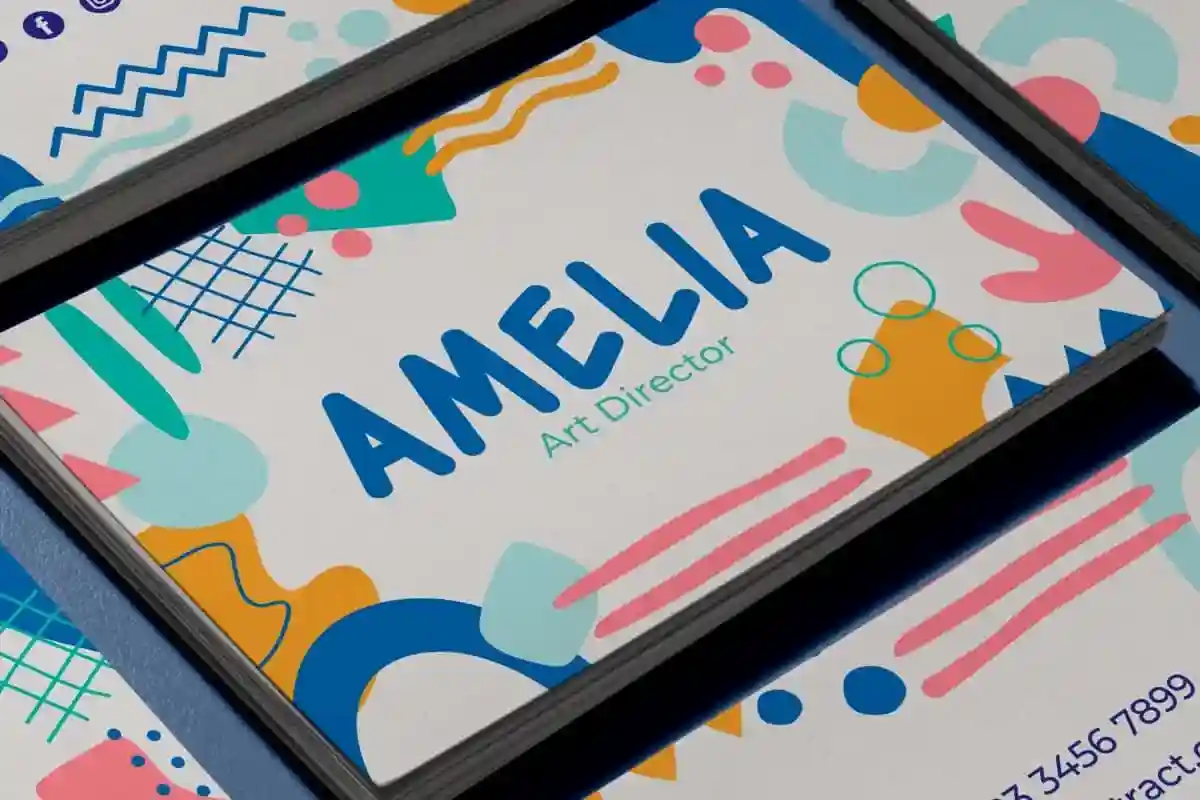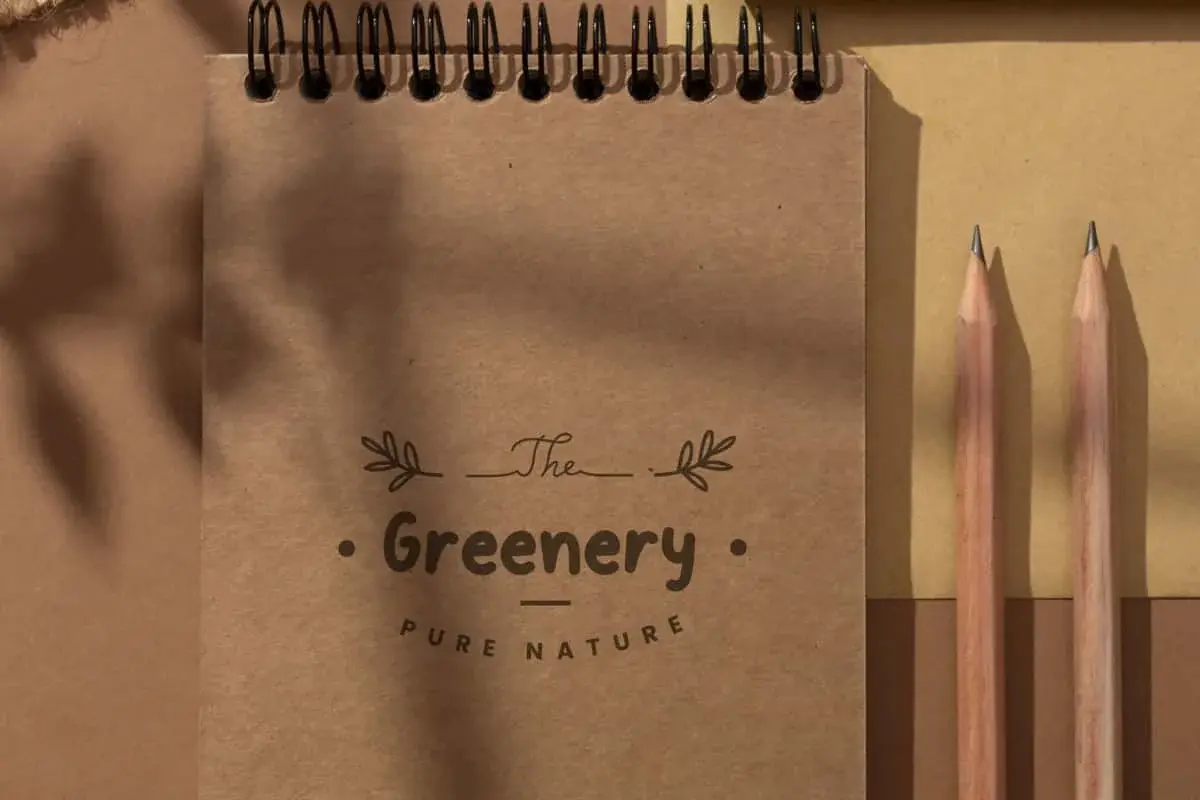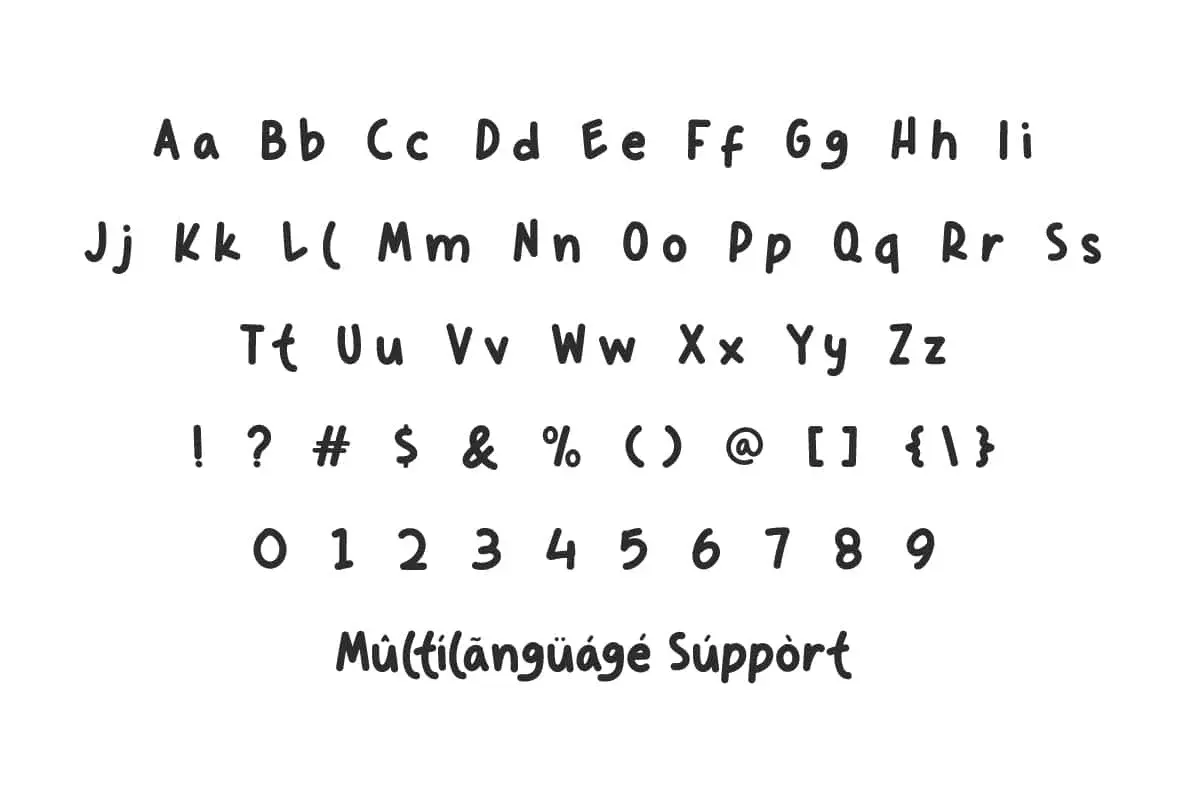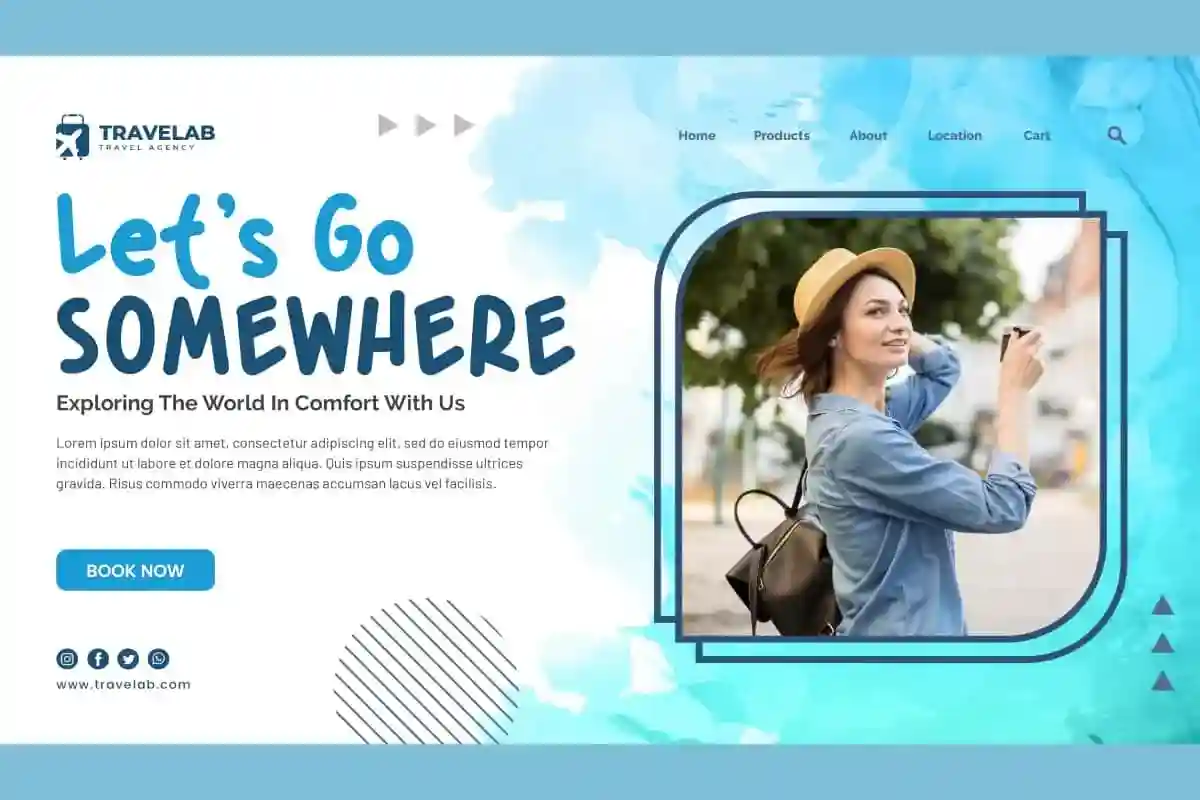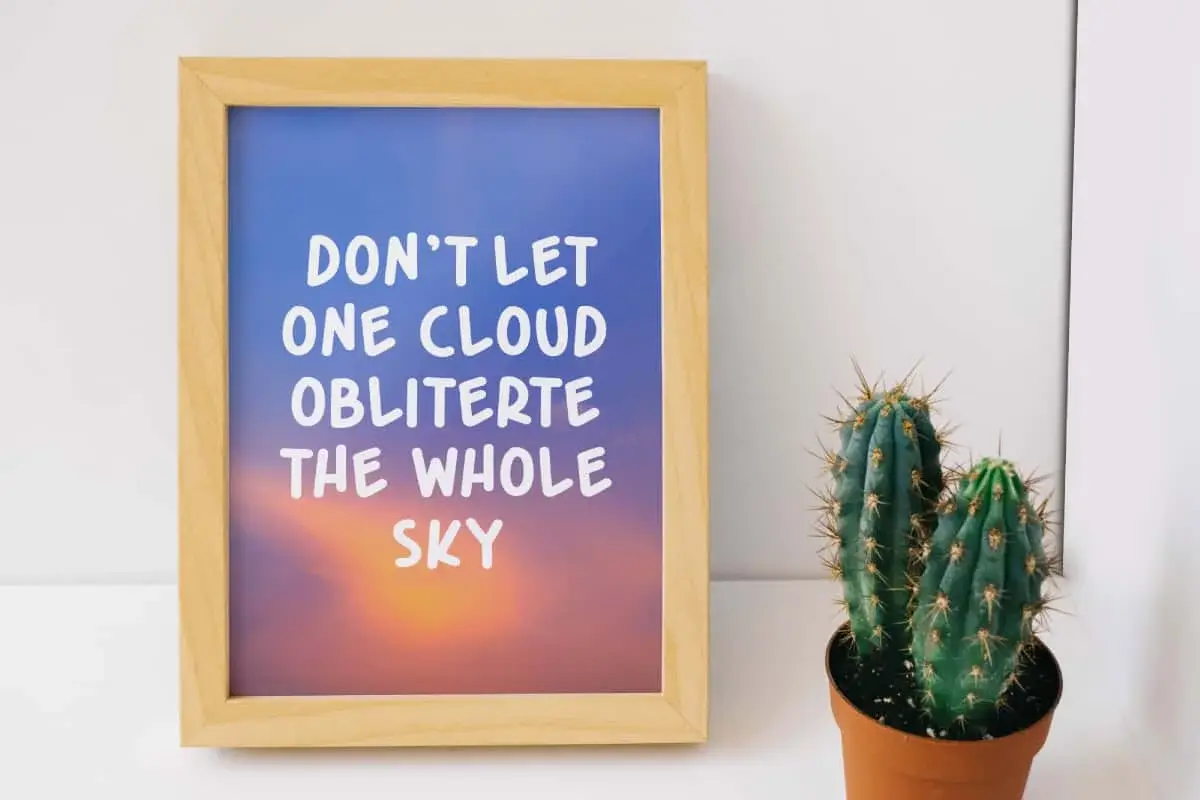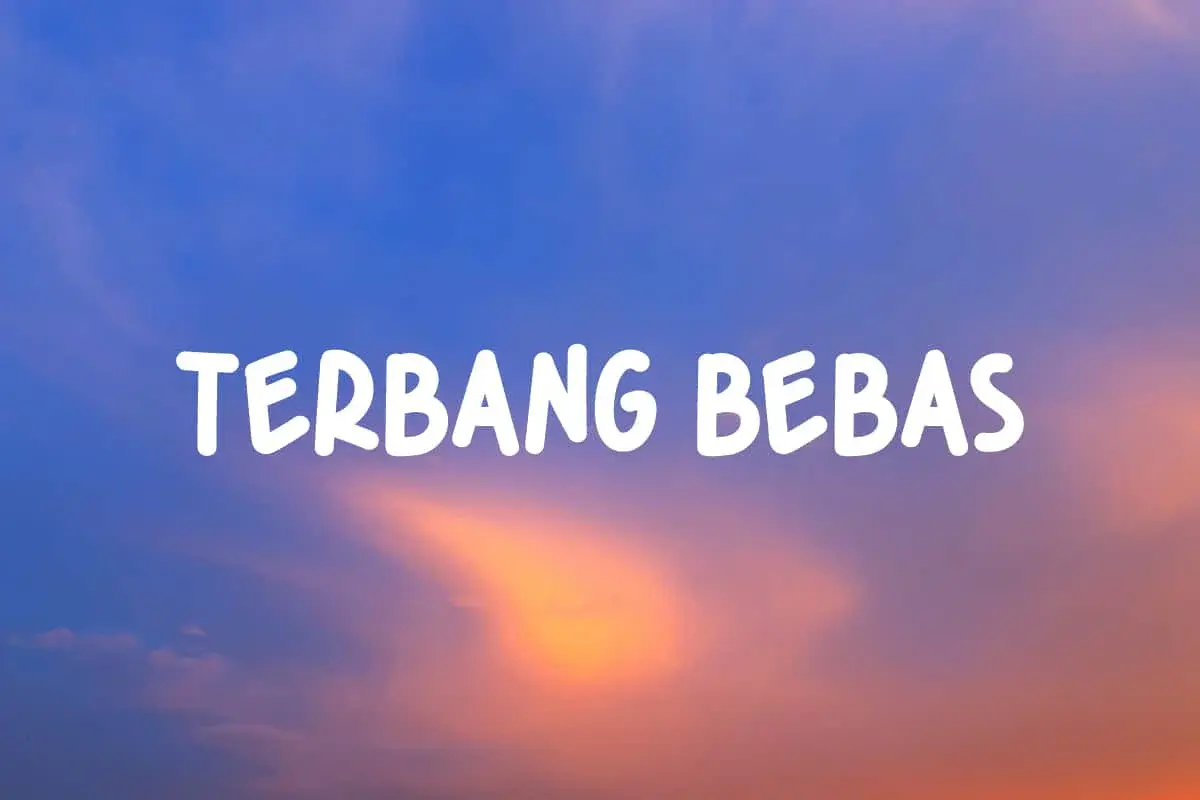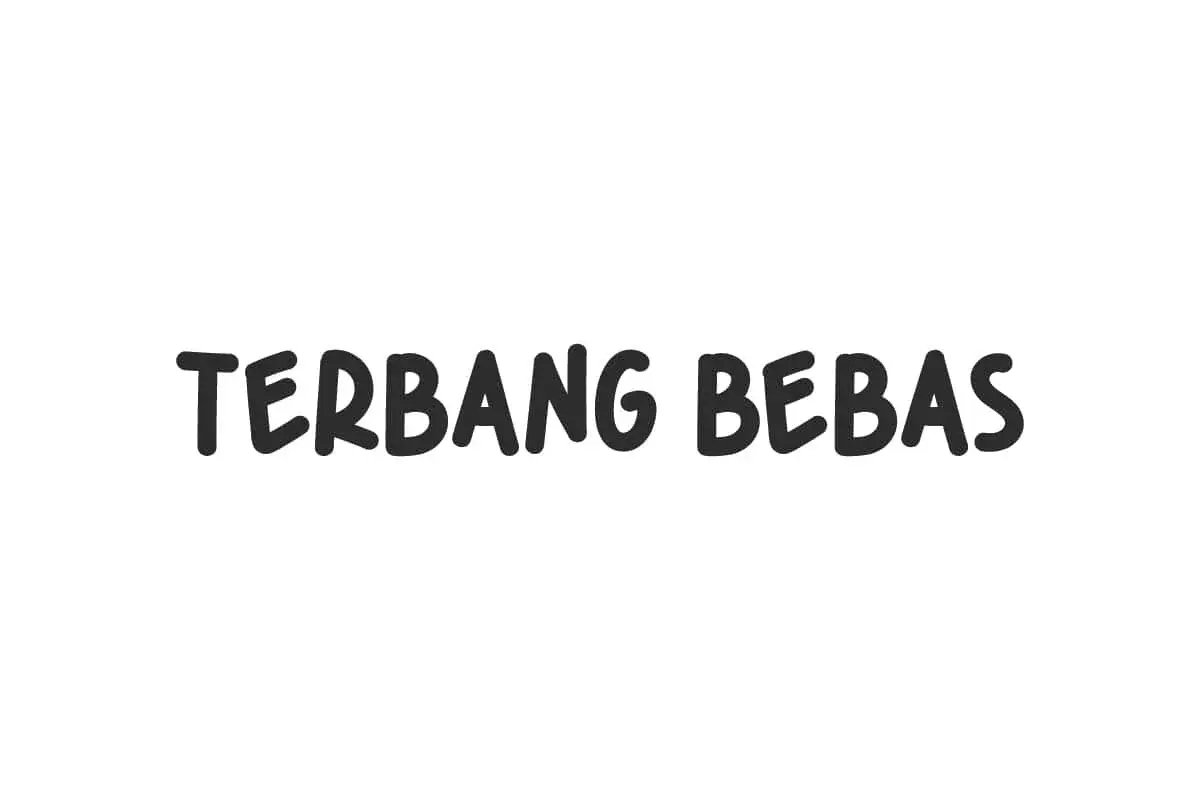
Terbang Bebas Font is a a fresh and playful font. It would be absolutely perfect for casual style and adorable kids themes, stickers, t-shirts, etc.
Terbang Bebas Font is a fresh and playful display font that will be ideal for bringing a fun atmosphere to its use. This font is perfect for blogs, book covers, brochure, custom mug, greeting cards, headers, headline, making logos, invitation, packaging design, posters, quote, stationery, watermark, website, title, etc. Let’s make a colorful project with this.
Terbang Bebas Font includes a complete set of Basic Uppercase and Lowercase Characters, Numbers, Punctuation Marks and Symbols. If this font is combined with aspects full of bright and cheerful colors, it will improve the mood of anyone who sees it. The soft shape of the letters and each rounded corner make it suitable for any business that requires a playful font style, such as artist, crafts, furniture, gifts and accessories, home decoration, painting school, printing, publishing, travel agent, or anything else.